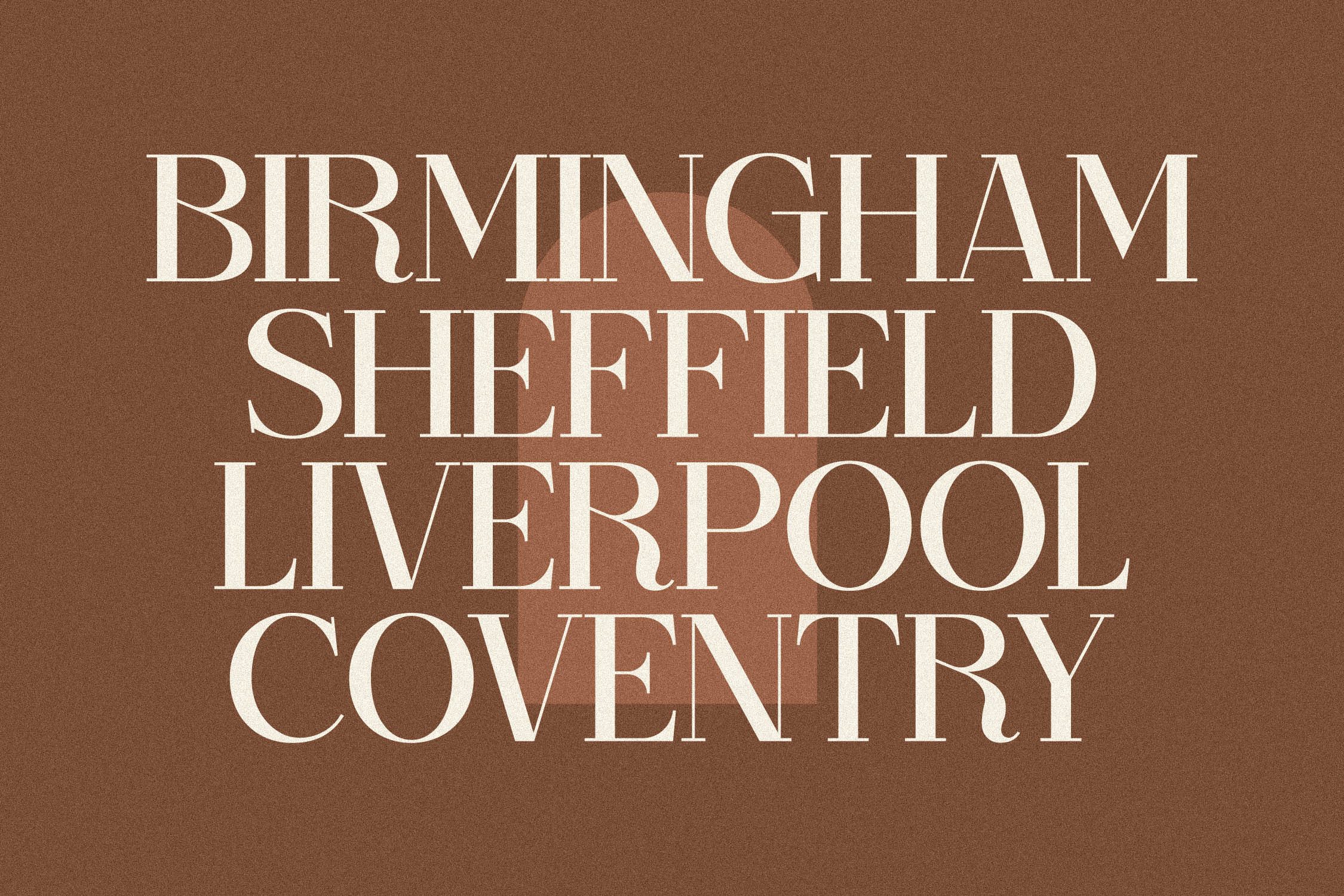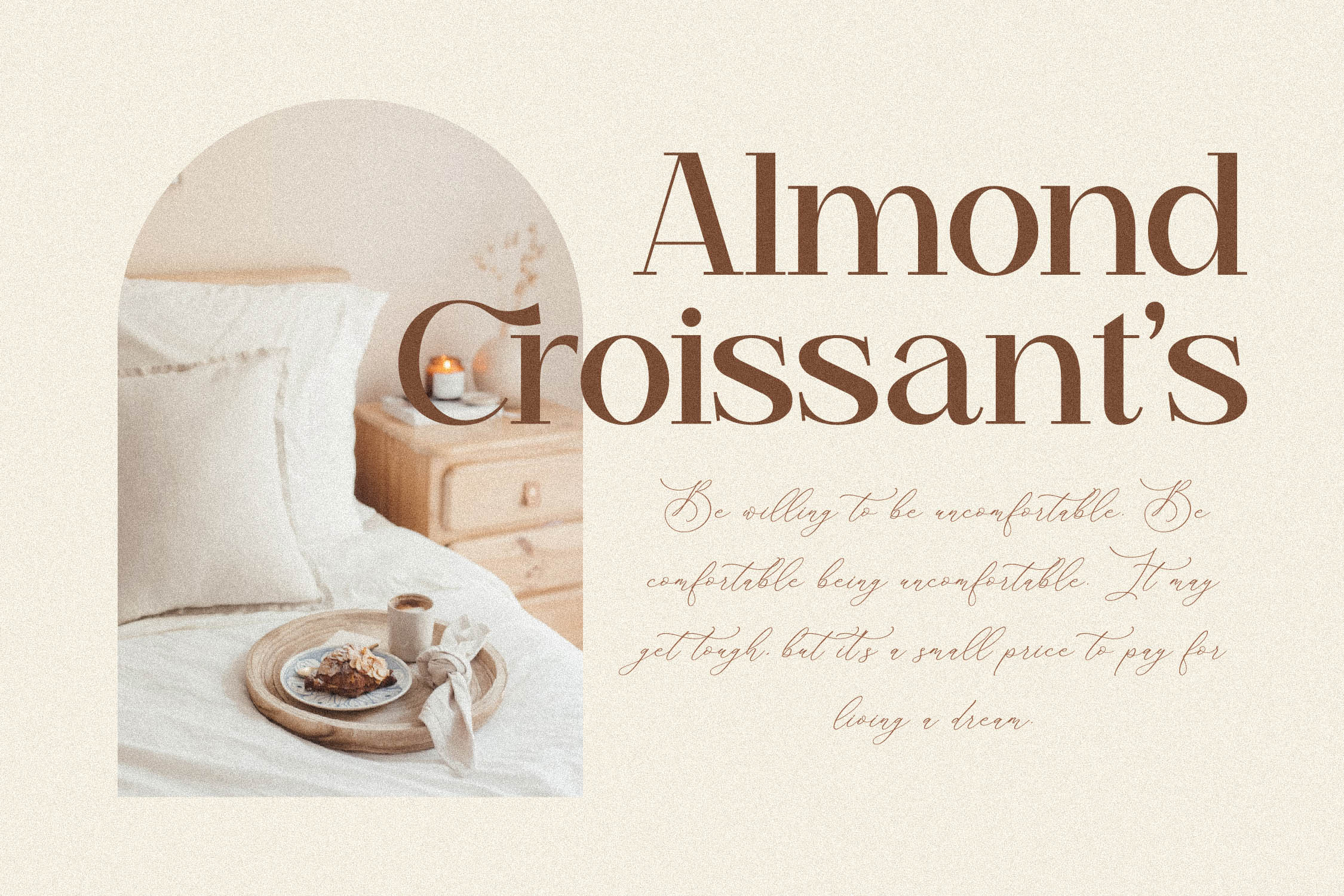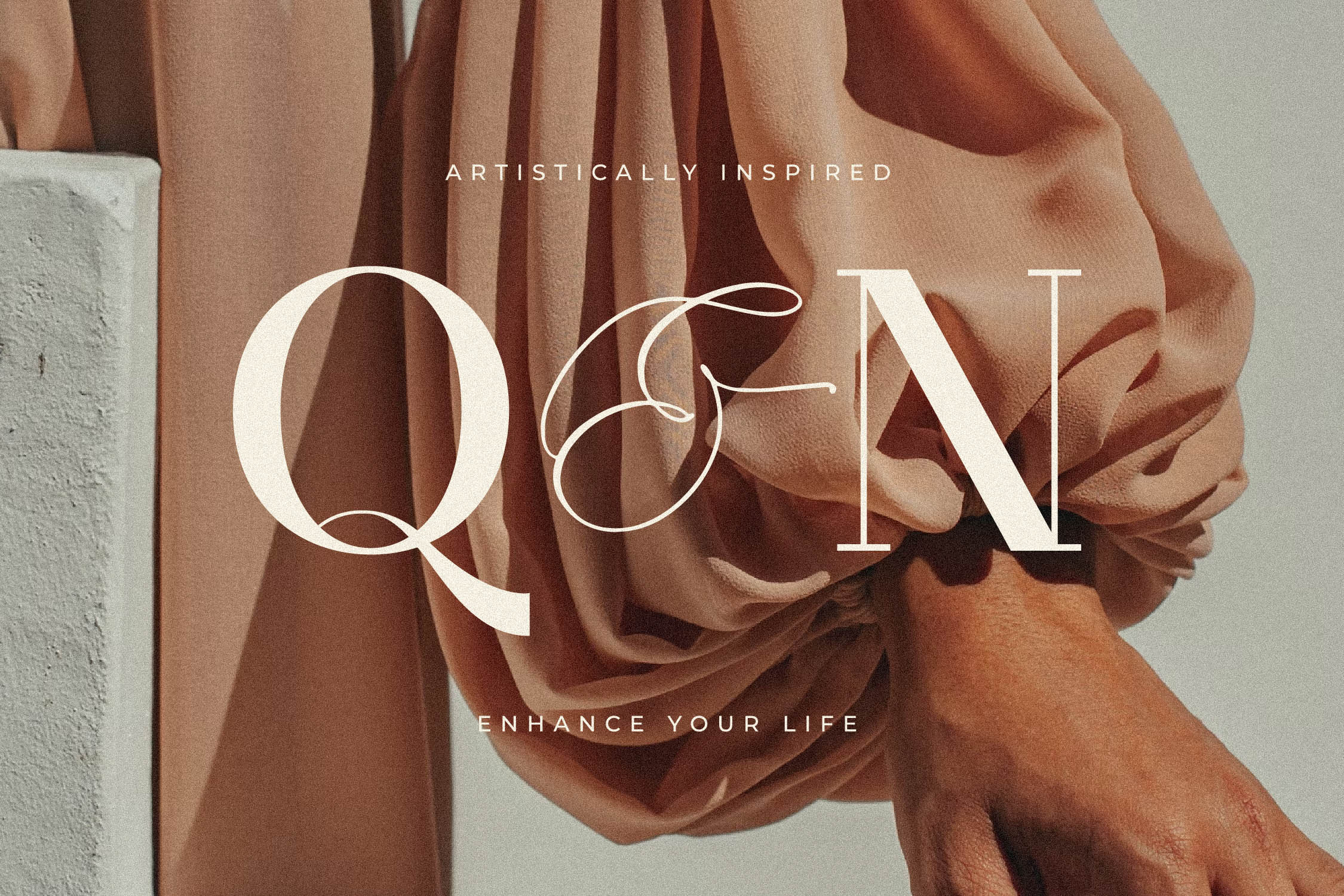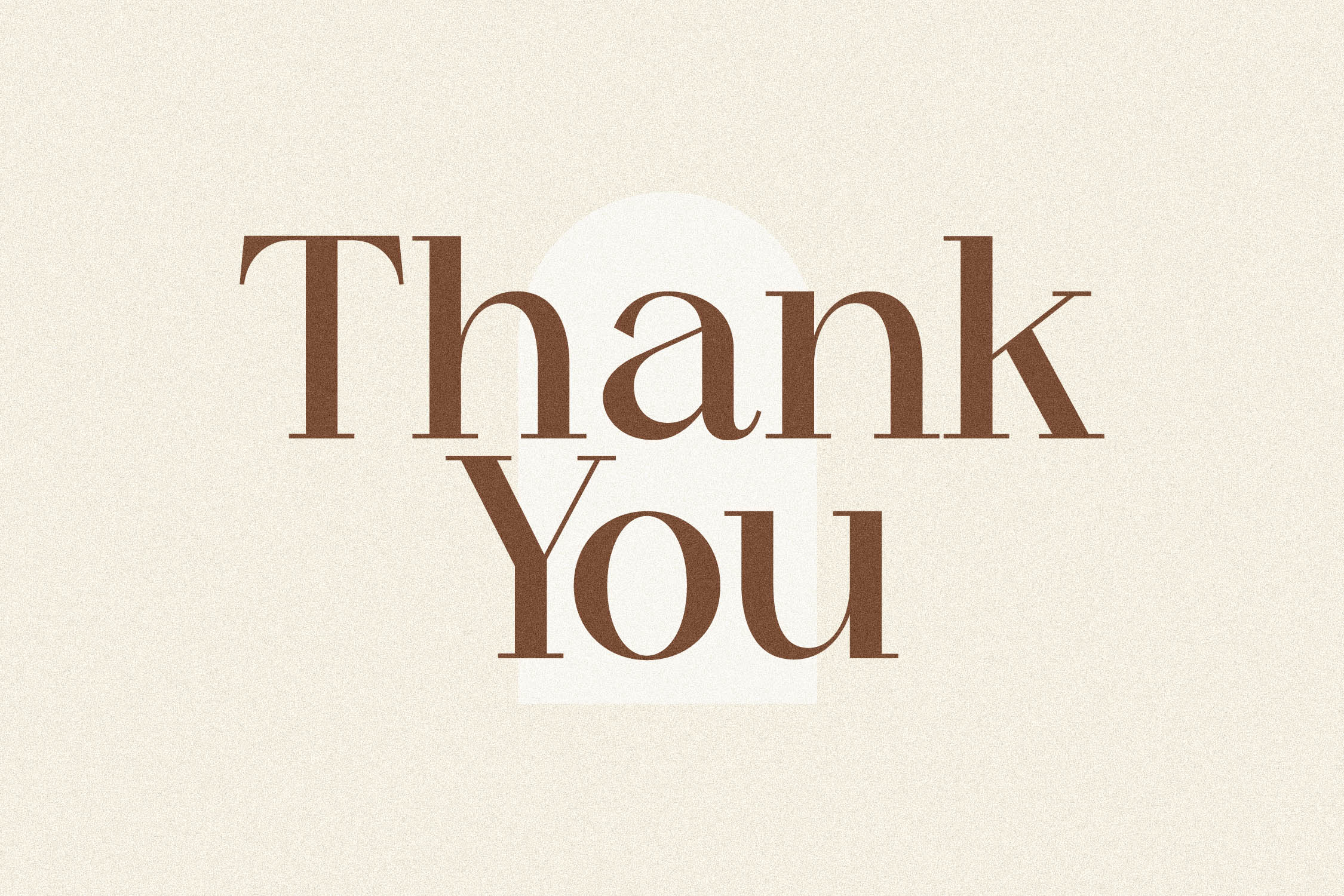
Begilas Font
Begilas Serif Font is a serif modern and classic typeface that has own unique style & modern look. This typeface is perfect for an elegant & luxury logo, book or movie title design, fashion brand, magazine, clothes, lettering, quotes, and so much more.